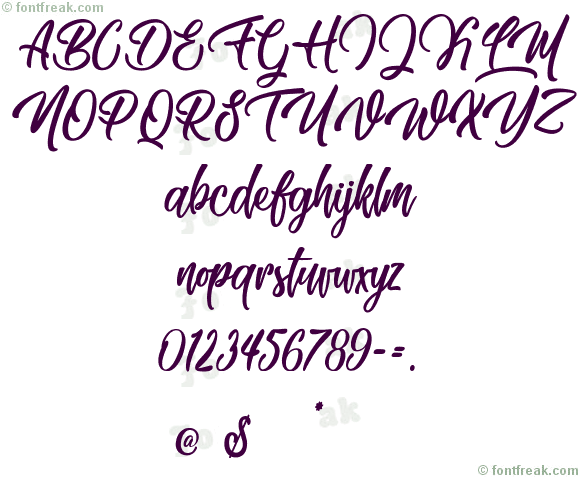
Skating Move
About Skating Move
Skating Move is a captivating display font designed by Suthi Srisopha, characterized by its dynamic and playful script style. Perfectly embodying the essence of movement, this font features fluid strokes that mimic the graceful flow of skating, making it ideal for projects that demand energy and creativity. The strokes vary in weight, creating a lively contrast that adds depth and character to the text. The spacing between letters is balanced, ensuring readability while maintaining an artistic flair. Skating Move is adorned with subtle decorative elements that enhance its visual appeal without overwhelming the design.
This font is particularly well-suited for a range of creative applications. It can be effectively used for skate park event posters, youth-oriented branding materials, and vibrant social media graphics. Its lively nature also makes it a great choice for designing eye-catching logos, custom merchandise, or even playful restaurant menus that want to convey a fun atmosphere. Graphic designers, small business owners, and content creators will find Skating Move to be a versatile addition to their font library, offering a unique touch to their projects.
What truly sets the Skating Move font apart is its ability to convey a sense of freedom and excitement. The flowing style captures attention and evokes a sense of movement, making it not just a font, but a statement piece in any design. With its freeware license, users can enjoy the Skating Move font free download, allowing them to incorporate this energetic typeface into their creative works without any cost. Whether for digital or print media, Skating Move breathes life into typography, making it a must-have for those looking to add a vibrant touch to their designs.